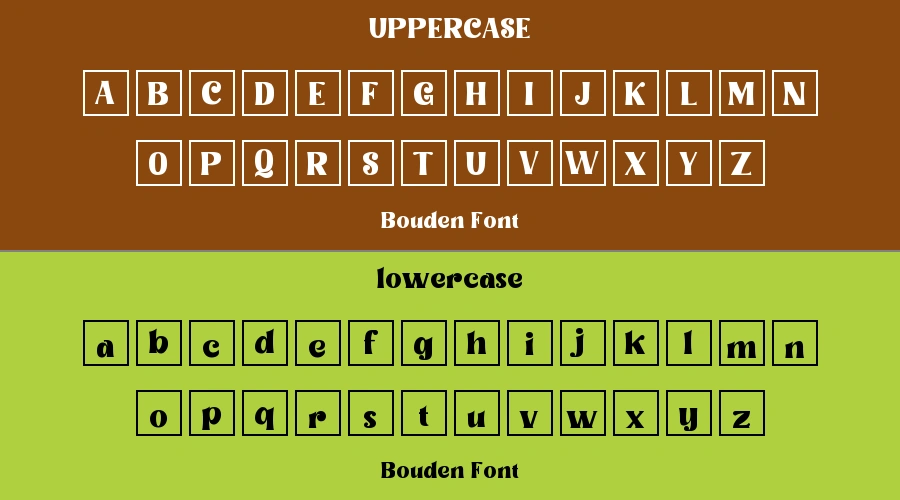
About Bouden Font
Bouden Font represents a sophisticated approach to type design, balancing geometric serifs with legibility. Perfect for brand guidelines, this font family showcases impressive consistency and artistic value throughout its character set. Designers appreciate its versatility and reliability.
Designers will appreciate nuanced touches including rounded serifs and dingbat elements, adding sophistication to any project. These features become apparent in historical documents, where digital conversion matters most. The careful treatment of stroke contrast and historical context ensures optimal performance.